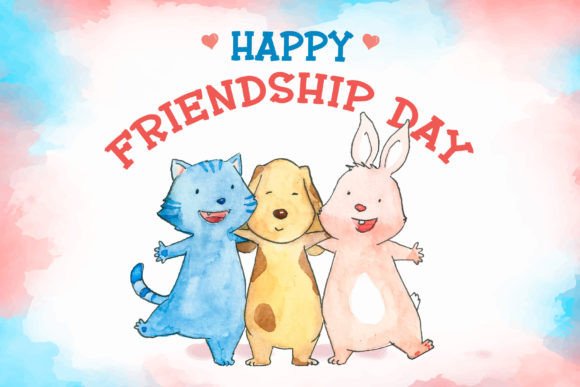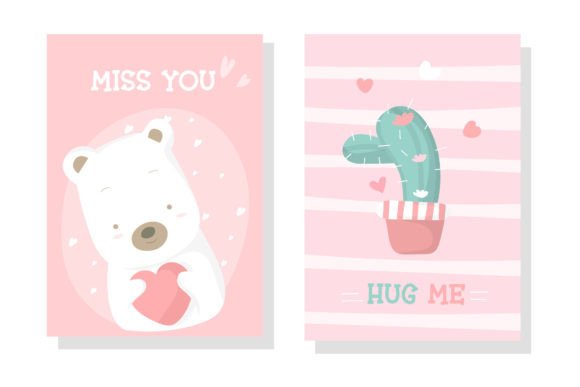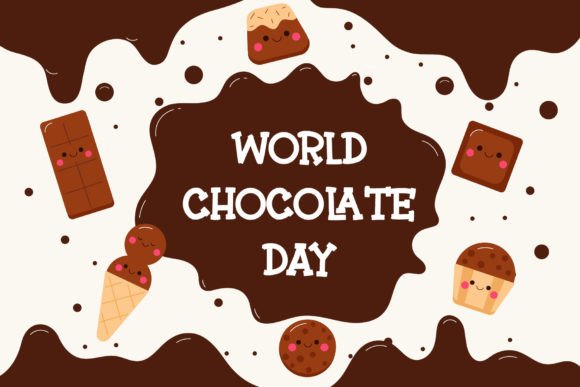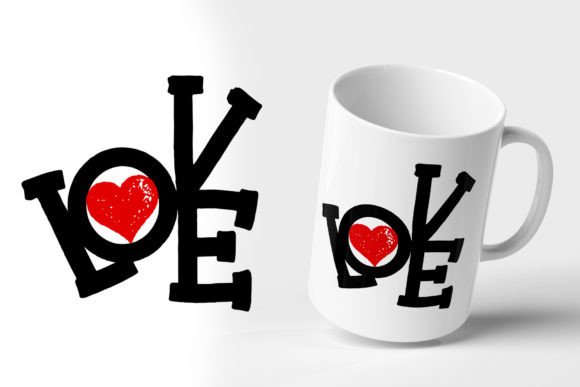
The Smile Font
The Smile: A Cute and Fun Slab Serif Font
The Smile is a cute, fun, and informal slab serif font. It’s perfect for a wide range of applications, including children’s projects, blog posts, logos, branding, ads, invitations, greeting cards, planners, photo albums, decorations, and much more. This versatile font will be a wonderful asset to your font library, with the potential to enhance any creation.
Key Features of The Smile
• Cute Design: Offers a charming and playful look suitable for various applications.
• Slab Serif Structure: Features distinctive serifs that add character and style.
• Informal Appearance: Brings a friendly and approachable feel to designs.
• Versatile Application: Ideal for both print and digital media projects.
Ideal Uses for The Smile
The Smile’s unique characteristics make it particularly well-suited for:
When incorporating The Smile into your designs, consider these tips:
• Use for headlines or short blocks of text to showcase its fun style.
• Experiment with different sizes to highlight the font’s cute features.
• Utilize its informal appearance to create welcoming and friendly designs.
The Smile is an excellent choice for designers looking to add a cute and fun slab serif font to their typographic toolkit. Its ability to bring charm and playfulness to various design projects makes it stand out in the world of typography. Whether you’re working on children’s projects, creating blog posts, or developing content that requires a touch of whimsy, The Smile offers the perfect blend of style and approachability.
Furthermore, The Smile’s unique design allows it to shine in various contexts. From informal invitations to more structured layouts that need a touch of friendliness, this font can elevate your projects. Its charming yet functional style works particularly well in designs that aim to evoke feelings of joy and warmth.
In conclusion, The Smile is a font that truly captures the essence of fun and approachability in typography. Its ability to work well in both playful projects and more sophisticated layouts showcases its versatility. For those looking to add a touch of cheerful charm to their work, The Smile can enhance themed creations with its distinctive style. It’s the perfect choice for designers seeking to make a friendly, stylish impact across a wide range of creative projects.